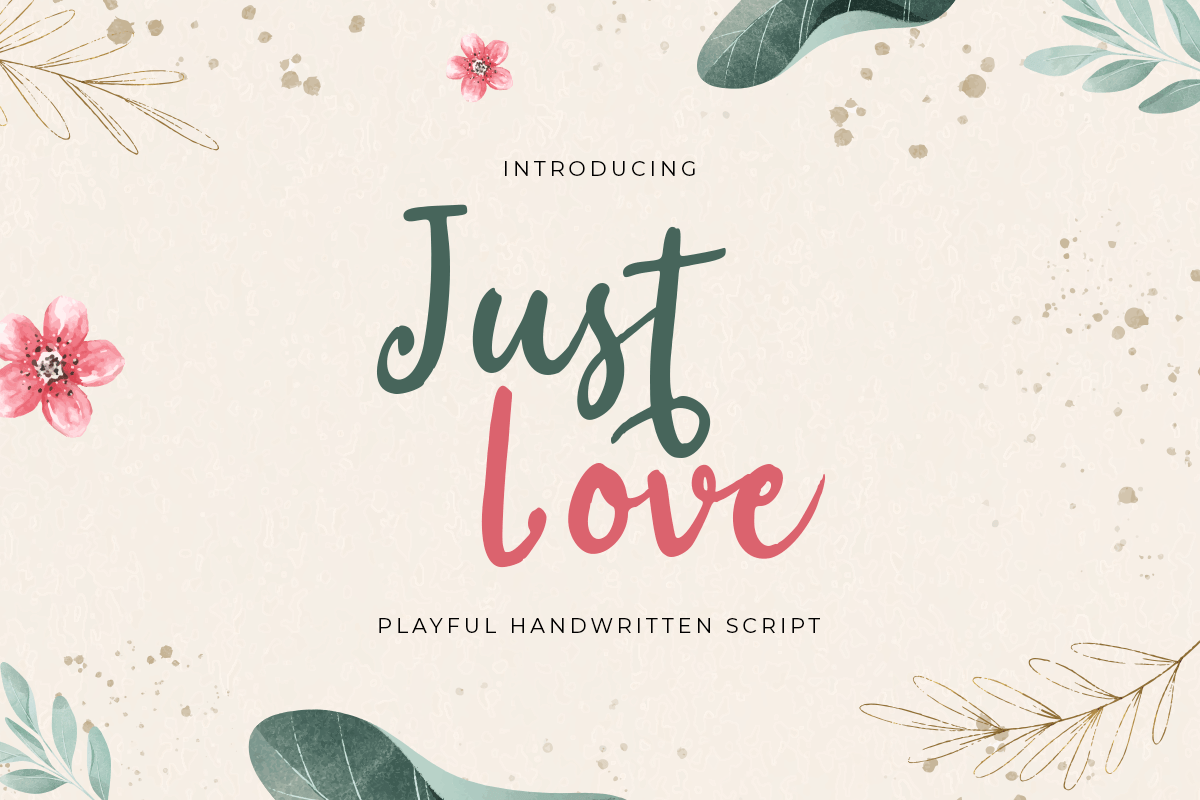
Just Love
-Cute Unique Playful Handwritten Font
Just Love
Just Love is A Playful Handwritten Font with cute and beauty style and so charming. This font specially crafted for your branding, quotes design projects or cute logo, unique, modern for any designs such as print, merchandise, and so many more with easy to use but unique results are so playful.